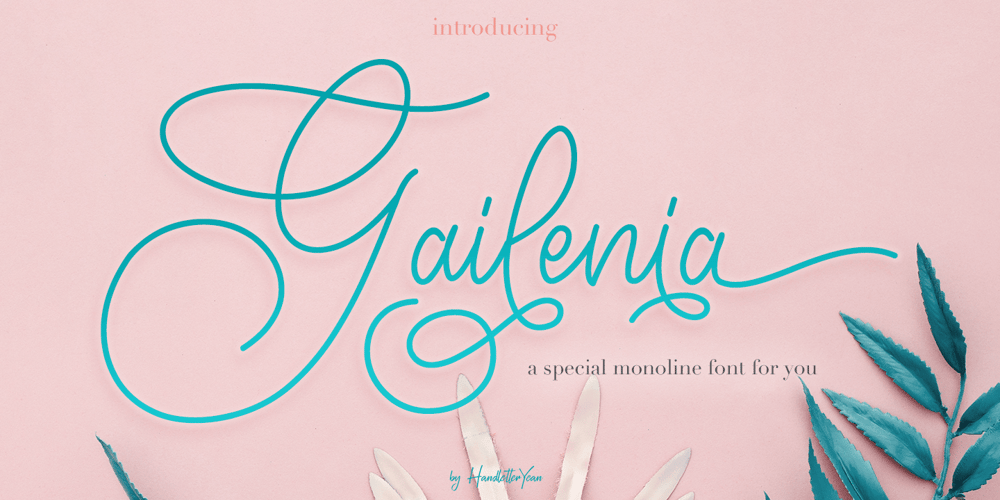
Gailenia Font Family was designed by Yean Aguste and published by HandletterYean. Gailenia contains 2 styles and family package options. A special person deserves a special font. That is why we present you Gailenia. Make your design or any project of yours look stunning and wonderful with all the features of this font, like alternates, swashes, titling, and stylistic alternates. This font looks amazing for packaging, business cards, invitations, posters, labels, and any kind of design. Accessible in Adobe Illustrator, Adobe Photoshop, Adobe InDesign, & CorelDraw. Multilingual Support: ä ö ü Ä Ö Ü ß ¿ ¡ To access the alternate glyphs, you need a program that supports OpenType features such as Adobe Illustrator CS, Adobe Photoshop CC, Adobe Indesign, and CorelDraw. For more information about how to access alternate glyphs, please go to this link ( goo.gl/ZT7PqK ) Check out our font collection for more great and artistic fonts. Pick your most favorite font and use it as you like to reach your goals.